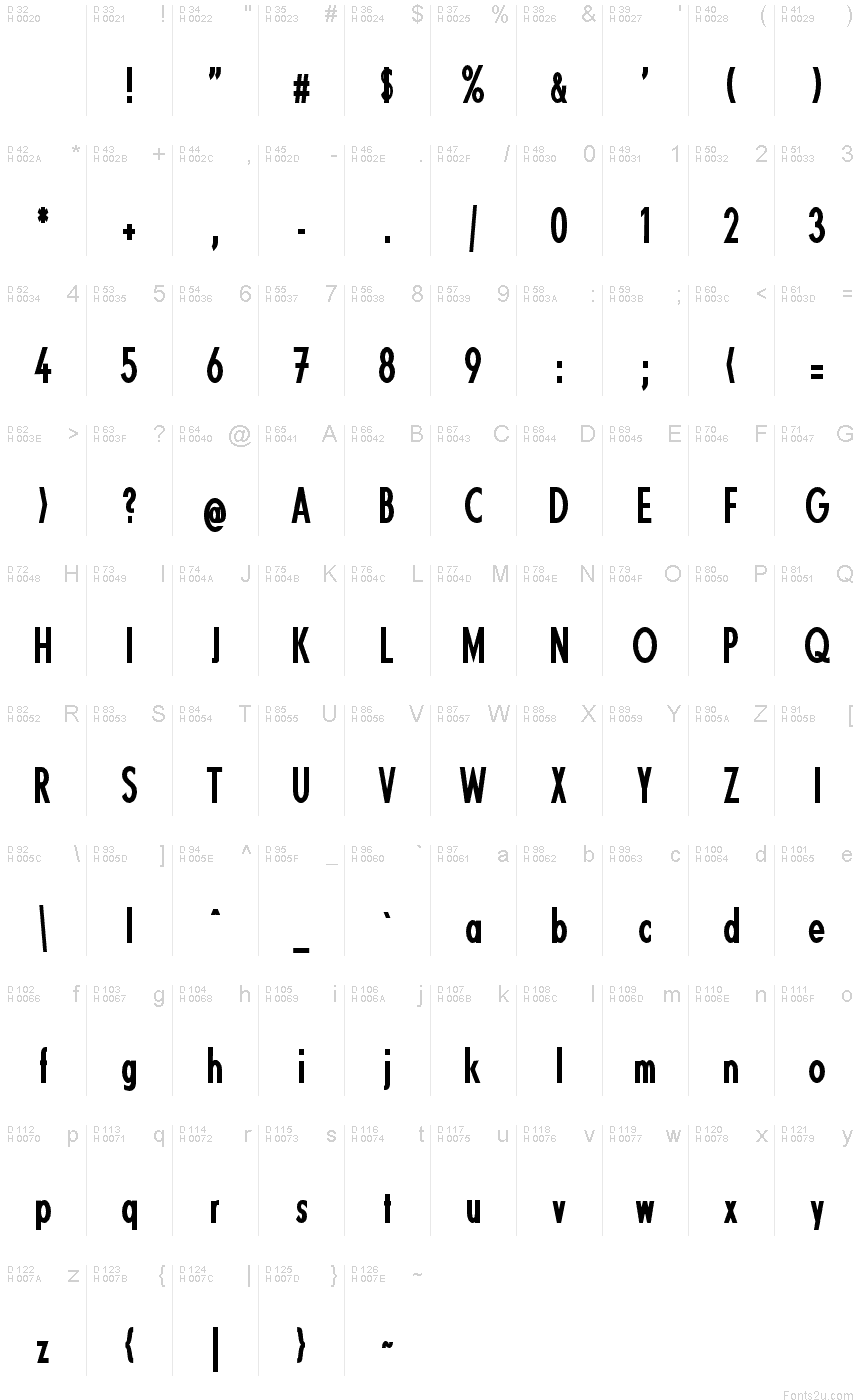
Fundamental Brigade Condensed by Peter Wiegel is a free condensed sans serif with an exceptionally tall, forceful silhouette. Its tight letters alternate broad strokes with slim joins.
As a towering title treatment, it gives posters and music packaging the blunt impact of oversized industrial lettering. The compressed proportions also suit event graphics and magazine covers, especially when vertical space is limited but the typography must remain emphatic. In branding, its dense skyline can turn a short name into a compact, recognizable product mark.